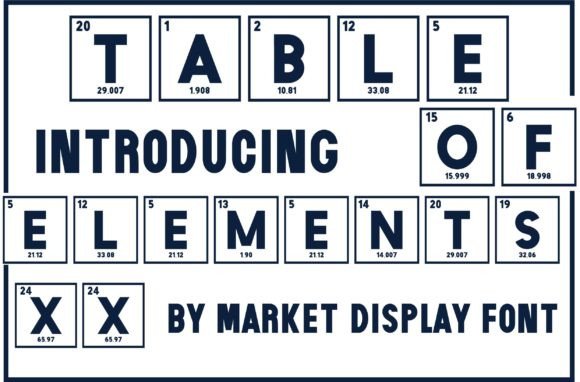
Introducing the Table of Elements Xx Font - the perfect addition to your design arsenal! Whether you're creating science posters or simply looking for a fun and useful display font, Table of Elements XX has got you covered.
Created by the talented designers at MDF, this font is sure to make your projects stand out from the crowd. With its bold, eye-catching style, Table of Elements XX is perfect for grabbing your audience's attention and holding it.
But this font isn't just stylish - it's also incredibly versatile. Use it for headlines, titles, or body text to give your designs a unique and modern touch. And with its clean, easy-to-read lines, Table of Elements XX is perfect for both print and digital projects.
Looking for a font that's both practical and fun? Look no further than Table of Elements XX. Its playful, science-inspired design is sure to spark your creativity and inspire new ideas. So why wait? Add Table of Elements XX to your font library today and start creating!